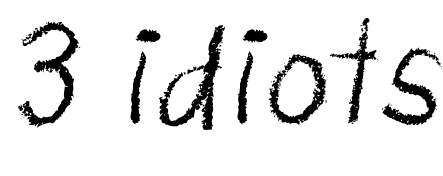
3 Idiots Font
The poster's movie title is displayed in Lipstick font, created by Patrick Griffin, which was inspired by a message written using lipstick. Along with the standard Lipstick font, the family also includes an additional version featuring lipstick kisses, hearts, and other designs. This is a commercial font and further information can be found here.